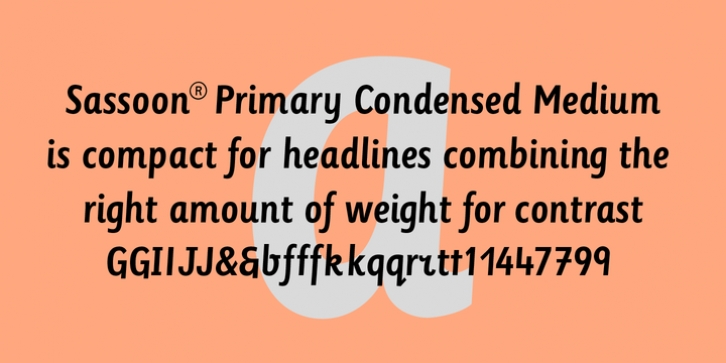
Sassoon Primary Cond was designed by Rosemary Sassoon, Adrian Williams and published by Sassoon-Williams. Sassoon Primary Cond contains 1 style.
Those who design books for young children should consider the different needs of their readers. When laying out pages for young readers, particular care should be taken over word spacing. Don't forget that justifying short lines disrupts spacing. Justification should be used only when absolutely necessary. In the research undertaken with young readers the importance of consistent spacing was clear. It also appeared that the poorer readers profited from wider word spacing, while spacing that suited the poorest readers, positively annoyed the better readers.
These typefaces have built-in letter spacing because of their exit strokes, as well as extra clarity designed into them. Sassoon Primary Medium Condensed is a compact style for headlines combining the right amount of weight, yet in a friendly style. When used at large sizes the friendliness of Sassoon types really shines. Why not use it for headings throughout a book. You can find many other new ways to use this typeface. Ideal perhaps for the masthead or a magazine?